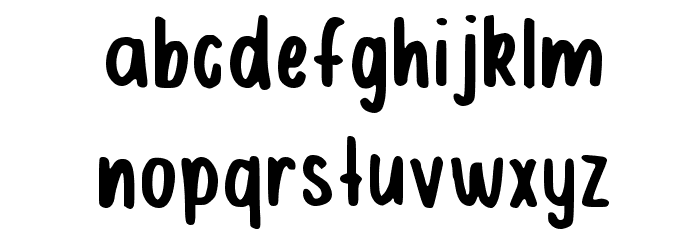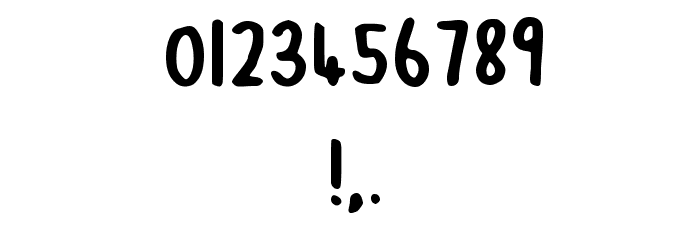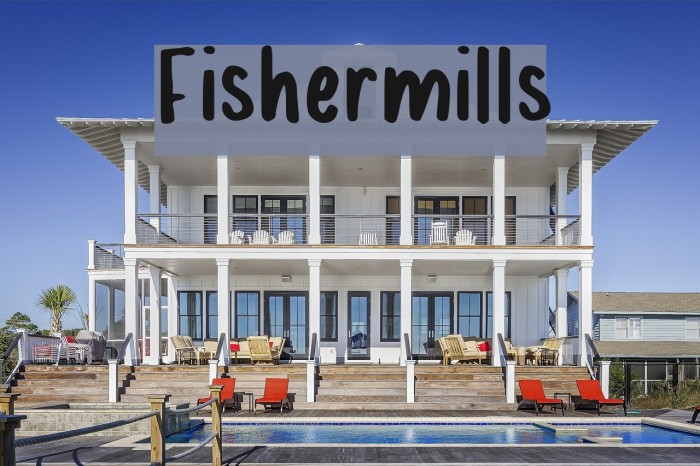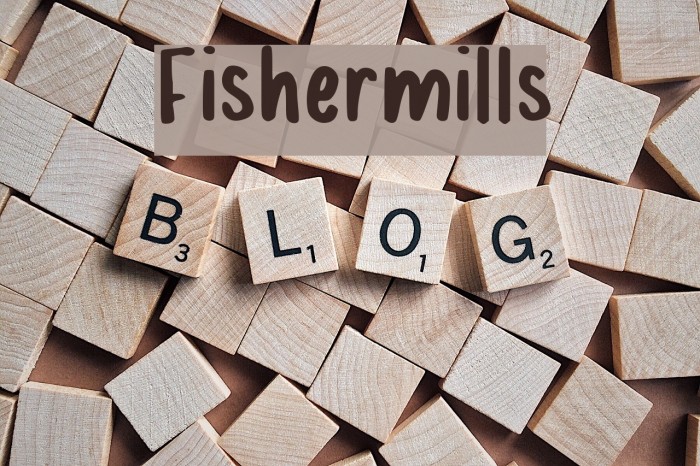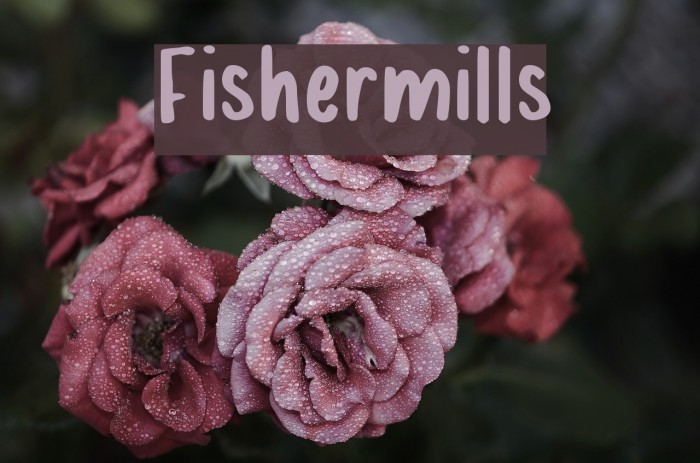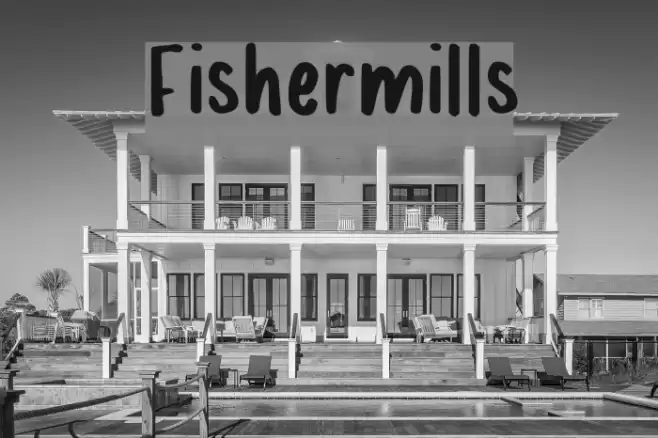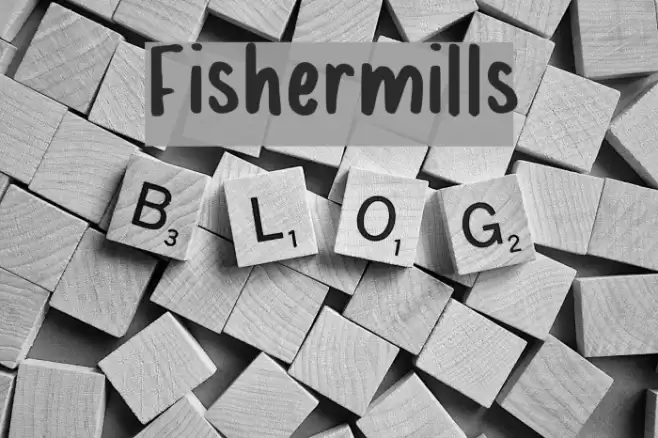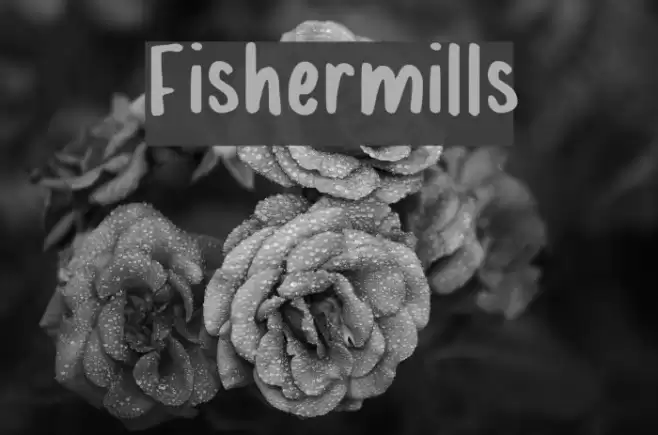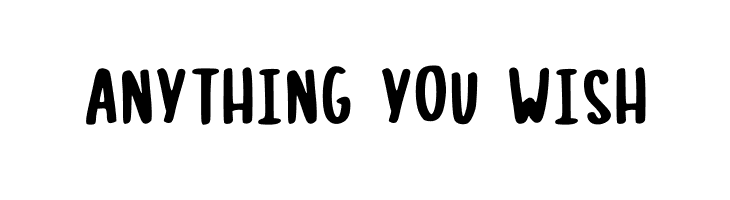
Fishermills Font
This font features a playful and rounded style, characterized by its bold and slightly irregular strokes. The letters have a hand-drawn appearance, giving them a friendly and approachable feel. The uppercase and lowercase letters maintain a consistent style, with a slight variation in height and width that adds to the casual aesthetic. The numbers are clear and easy to read, matching the overall playful theme. Special characters are included, maintaining the same whimsical style. This font is ideal for projects that require a fun and informal touch.
A playful, rounded font with a hand-drawn, casual style.
- Proposed Projects: Ideal for children's books, playful branding, greeting cards, and casual invitations.
- Overall Style: Casual
- Use Case: Headlines, Logos, Informal Text